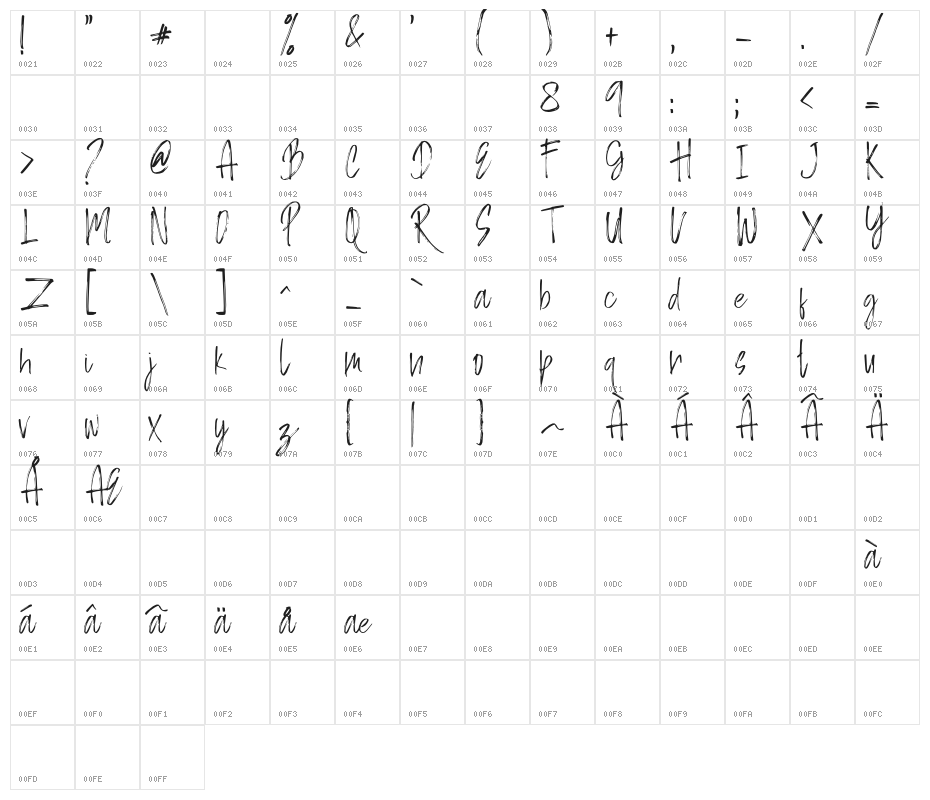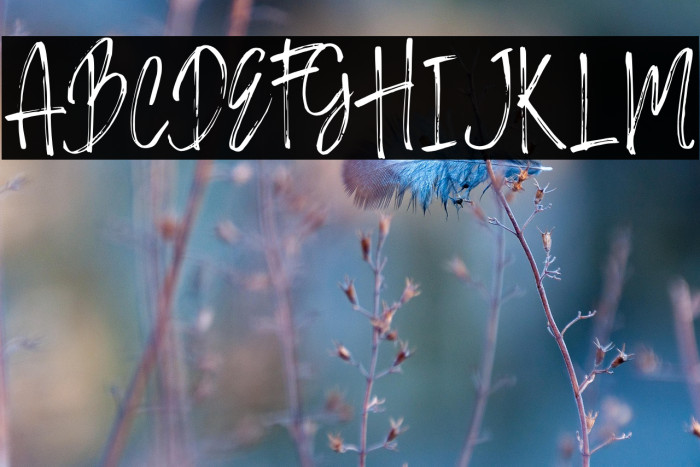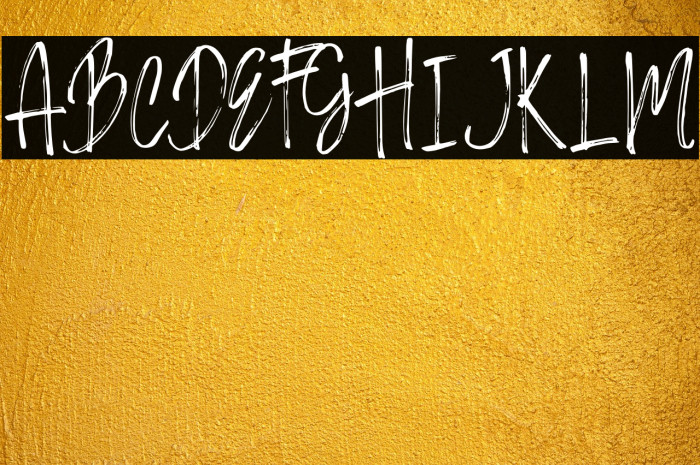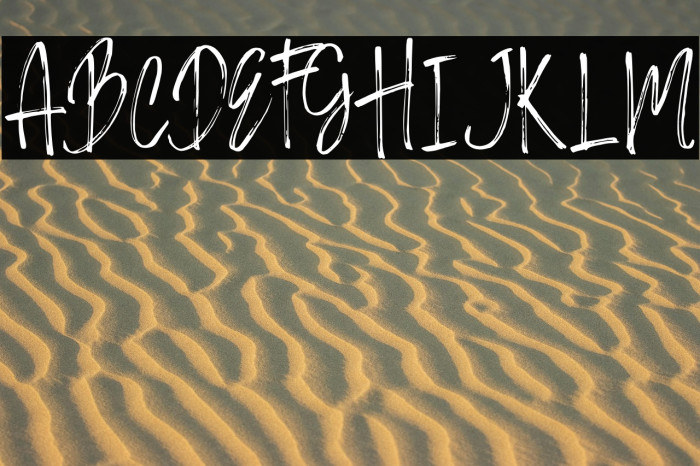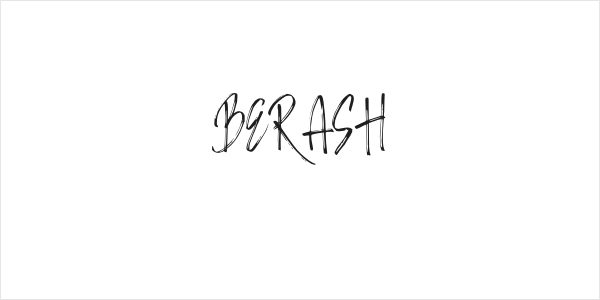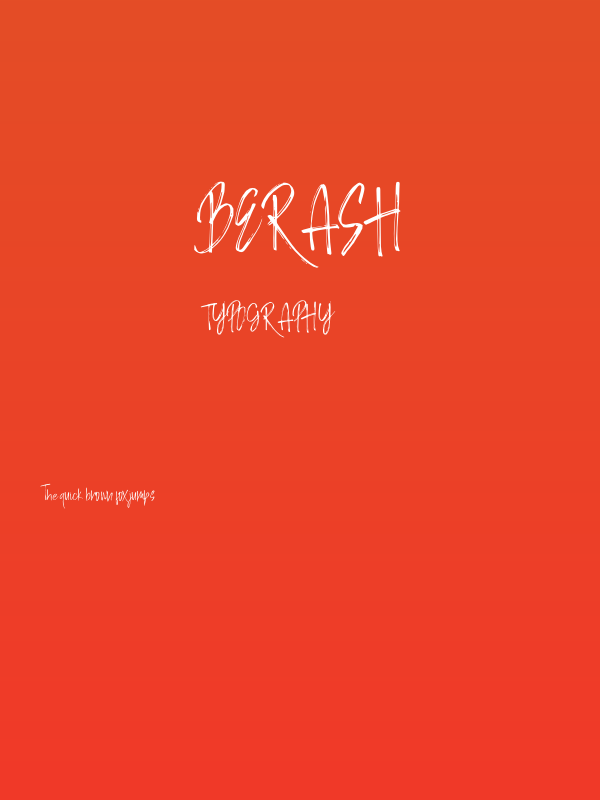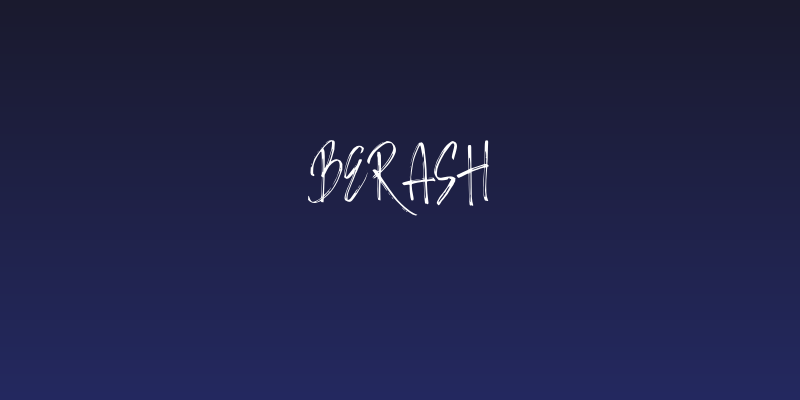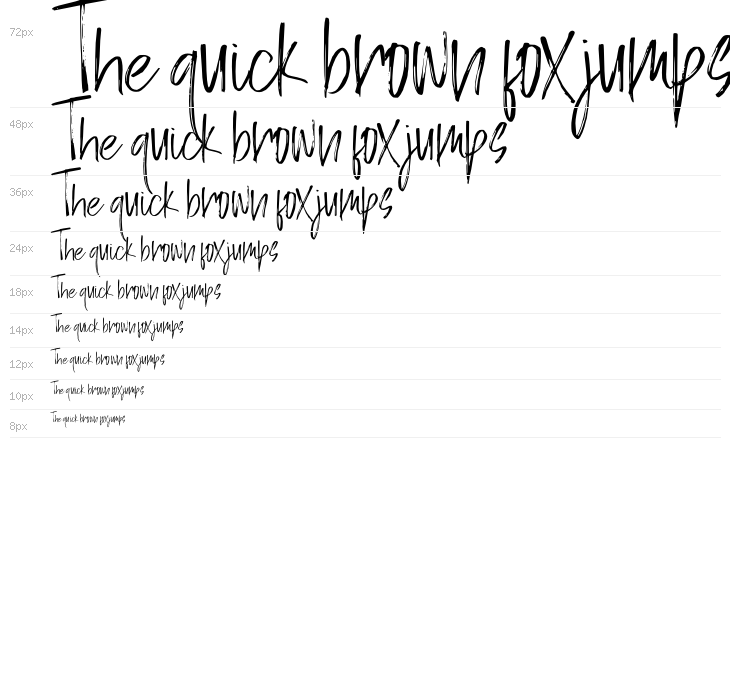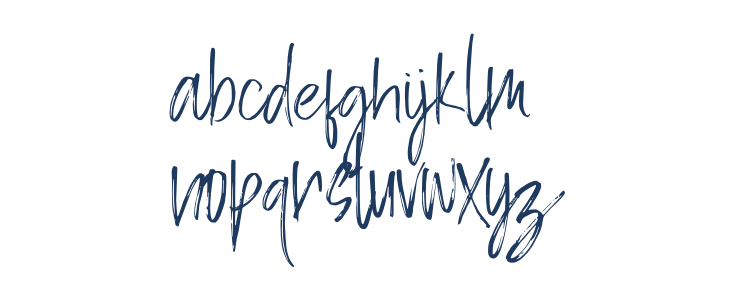
BERASH Font
| Stile generale | Modern, Decorative |
| Progetti proposti | Ideal for creative projects such as posters, album covers, branding, and social media graphics where a bold and artistic touch is desired. |